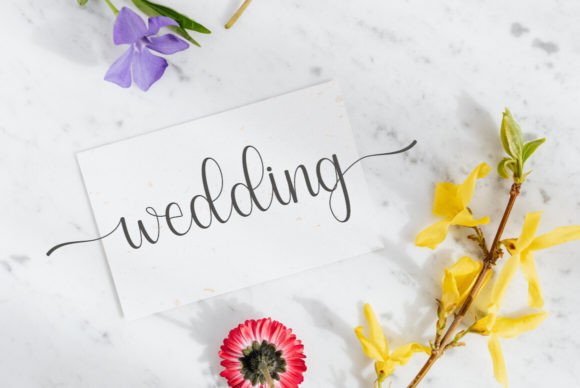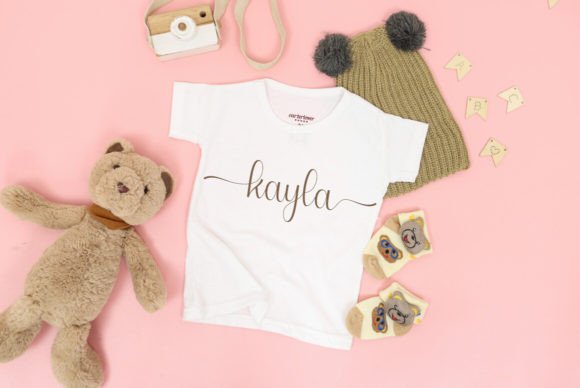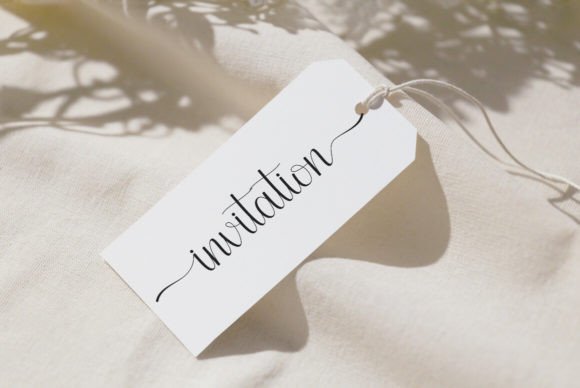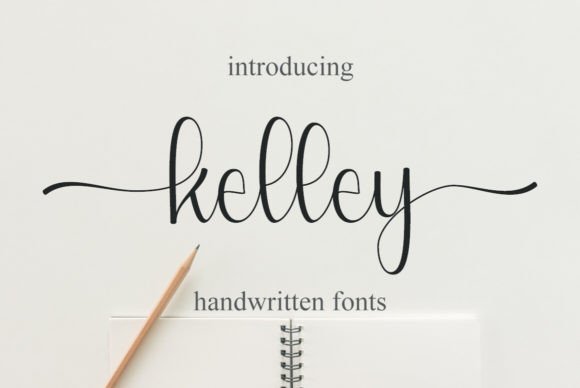
Introduction to Kelley Font
Introducing Kelley – a chic and exquisitely graceful handwritten typeface.
Ideal for adding a touch of elegance to wedding invitations, heartfelt thank you notes, inspirational quotes or warm greeting cards Perfectly suited to enhance logos, business cards or any design that calls for an artisanal, personalized touch.
Key Features of Kelley Font
Why Choose Kelley Font?